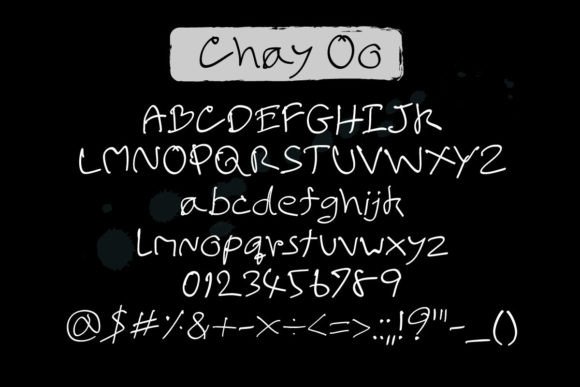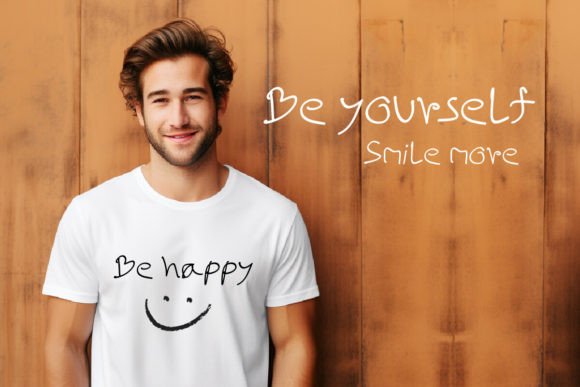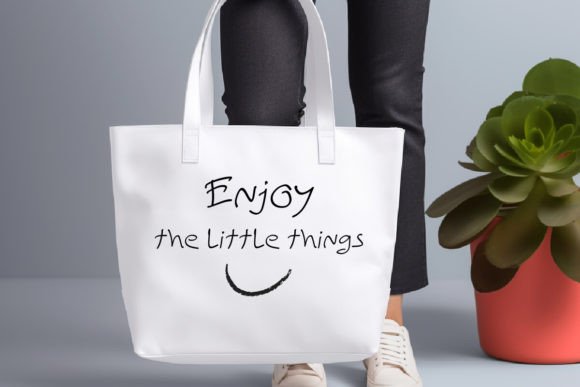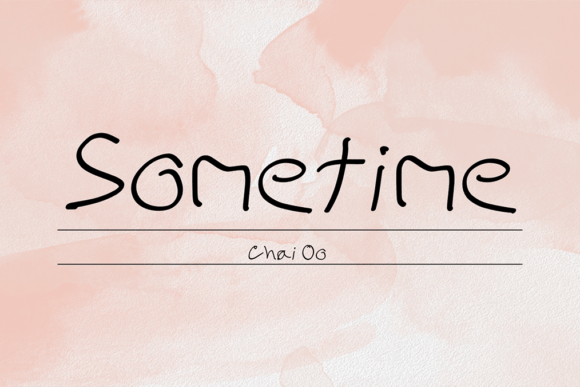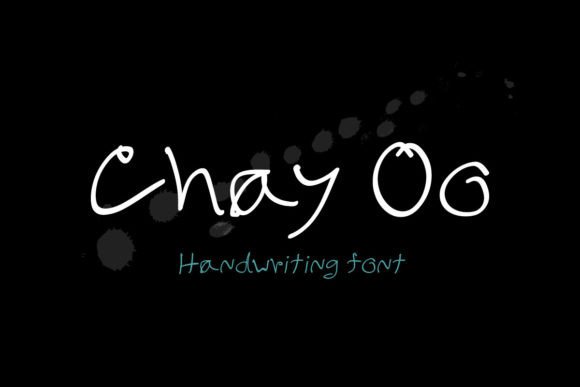
Introducing Chay Oo Font: The Quirky and Playful Addition to Your Design Arsenal
Are you tired of using the same old fonts in your designs? Do you want to add a touch of whimsy and playfulness to your projects? Look no further than Chay Oo Font! This quirky and charming font is perfect for designers and crafters who want to add a dash of personality to their work.
The Informal Style of Chay Oo Font
Chay Oo Font boasts an informal style that is perfect for designs that require a casual vibe. Its unique and quirky characters are designed to add a touch of humor and lightheartedness to your projects. Whether you’re working on a fun craft project or a playful marketing campaign, Chay Oo Font is sure to bring a smile to your audience’s faces.
Key Features of Chay Oo Font
- Quirky and Playful: Chay Oo Font is designed to be fun and playful, making it perfect for designs that require a lighthearted touch.
- Informal Style: This font has an informal style that is perfect for casual designs and projects.
- Unique Characters: Chay Oo Font features unique and quirky characters that will add a touch of personality to your designs.
- Easy to Read: Despite its playful style, Chay Oo Font is easy to read, making it perfect for designs that require a clear and concise message.
Uses for Chay Oo Font
So, what can you use Chay Oo Font for? The possibilities are endless! Here are a few ideas to get you started:
- Craft Projects: Chay Oo Font is perfect for craft projects, such as handmade cards, scrapbooking, and DIY decorations.
- Marketing Campaigns: Add a touch of whimsy to your marketing campaigns with Chay Oo Font. It’s perfect for social media graphics, flyers, and brochures.
- Signage: Chay Oo Font is a great choice for signage, such as store signs, event signs, and directional signs.
- Digital Designs: Use Chay Oo Font in your digital designs, such as website headers, email newsletters, and social media graphics.
Why Choose Chay Oo Font?
So, why should you choose Chay Oo Font for your next project? Here are a few reasons:
- Unique Style: Chay Oo Font has a unique and quirky style that will set your designs apart from the rest.
- Versatile: Chay Oo Font can be used for a wide range of projects, from craft projects to marketing campaigns.
- Fun: Most importantly, Chay Oo Font is fun! It’s the perfect way to add a touch of personality to your designs.
| Font Name | Chay Oo Font |
| Author | TanoiCartoonist |
In conclusion, Chay Oo Font is a quirky and playful font that is perfect for designers and crafters who want to add a touch of personality to their work. With its informal style and casual vibe, this font is sure to bring a smile to your audience’s faces. Whether you’re working on a fun craft project or a playful marketing campaign, Chay Oo Font is an awesome addition to your design arsenal.